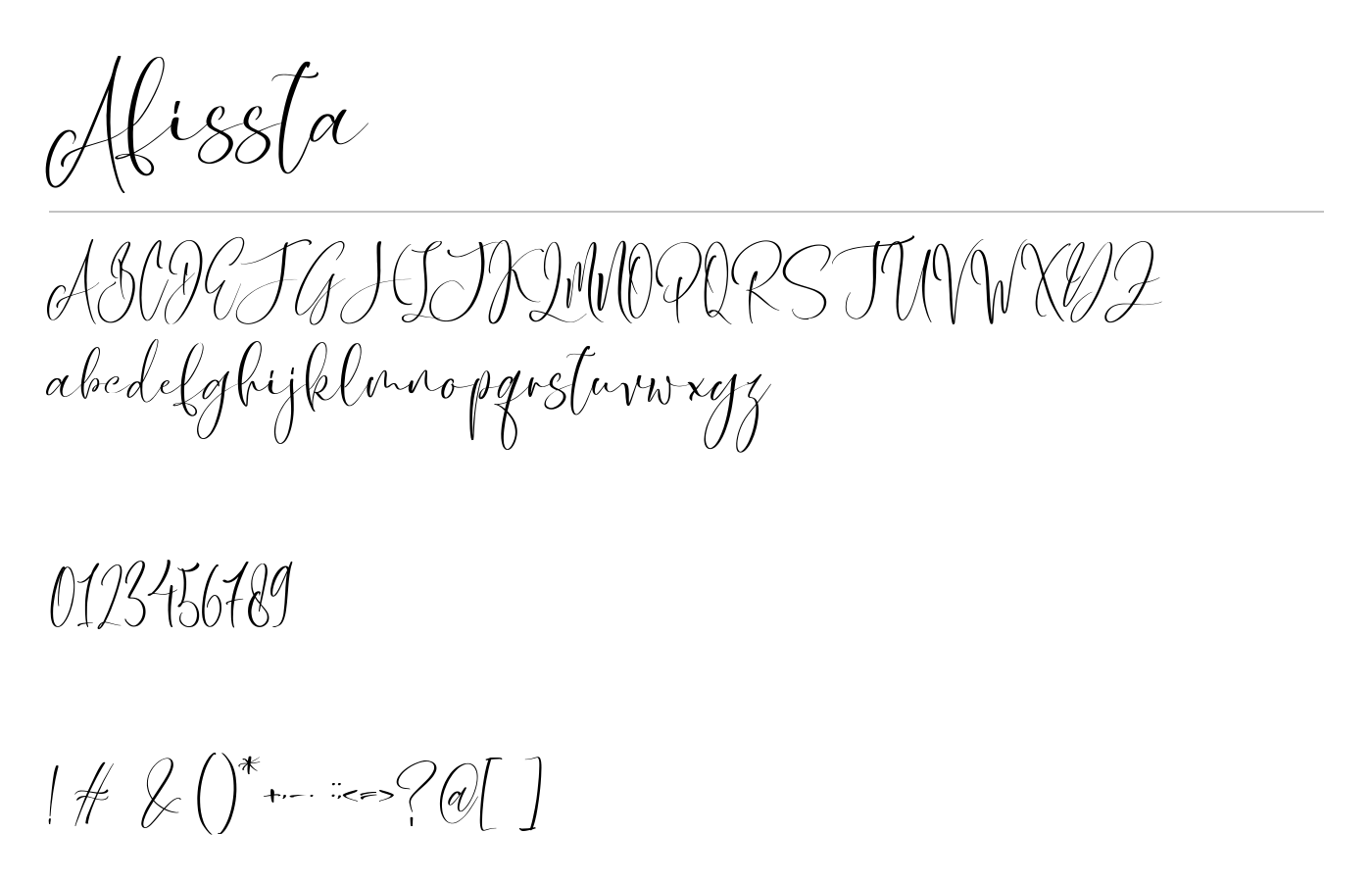
Afissta is a delicate, elegant script font characterized by its thin, flowing strokes and graceful, handwritten style. With its refined, calligraphic lines and airy spacing, it evokes a sense of sophistication and charm, making it perfect for luxury branding, wedding invitations, and stylish editorial designs. Its unique letterforms and smooth curves lend a personal, artistic touch that works beautifully in decorative headlines and creative projects.
Afissta Font